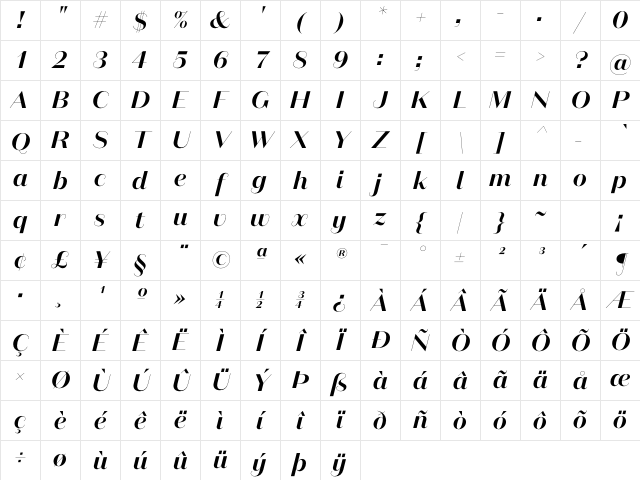
Foundry: Klim Type Foundry
Designer: Kris Sowersby
Design Context for Copyright Klim Type Foundry
Copyright Klim Type Foundry is a composed and adaptable typeface that performs quietly and consistently across a wide range of design contexts.